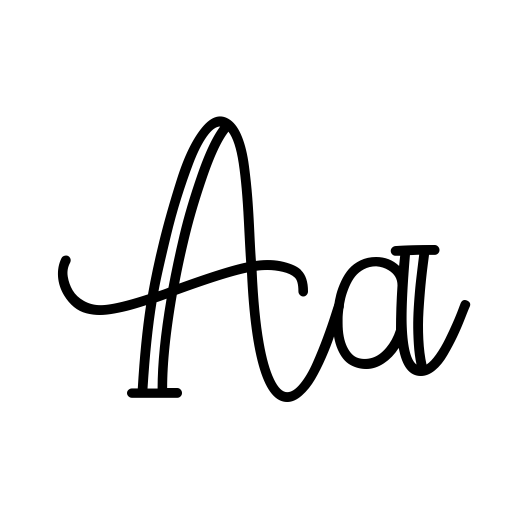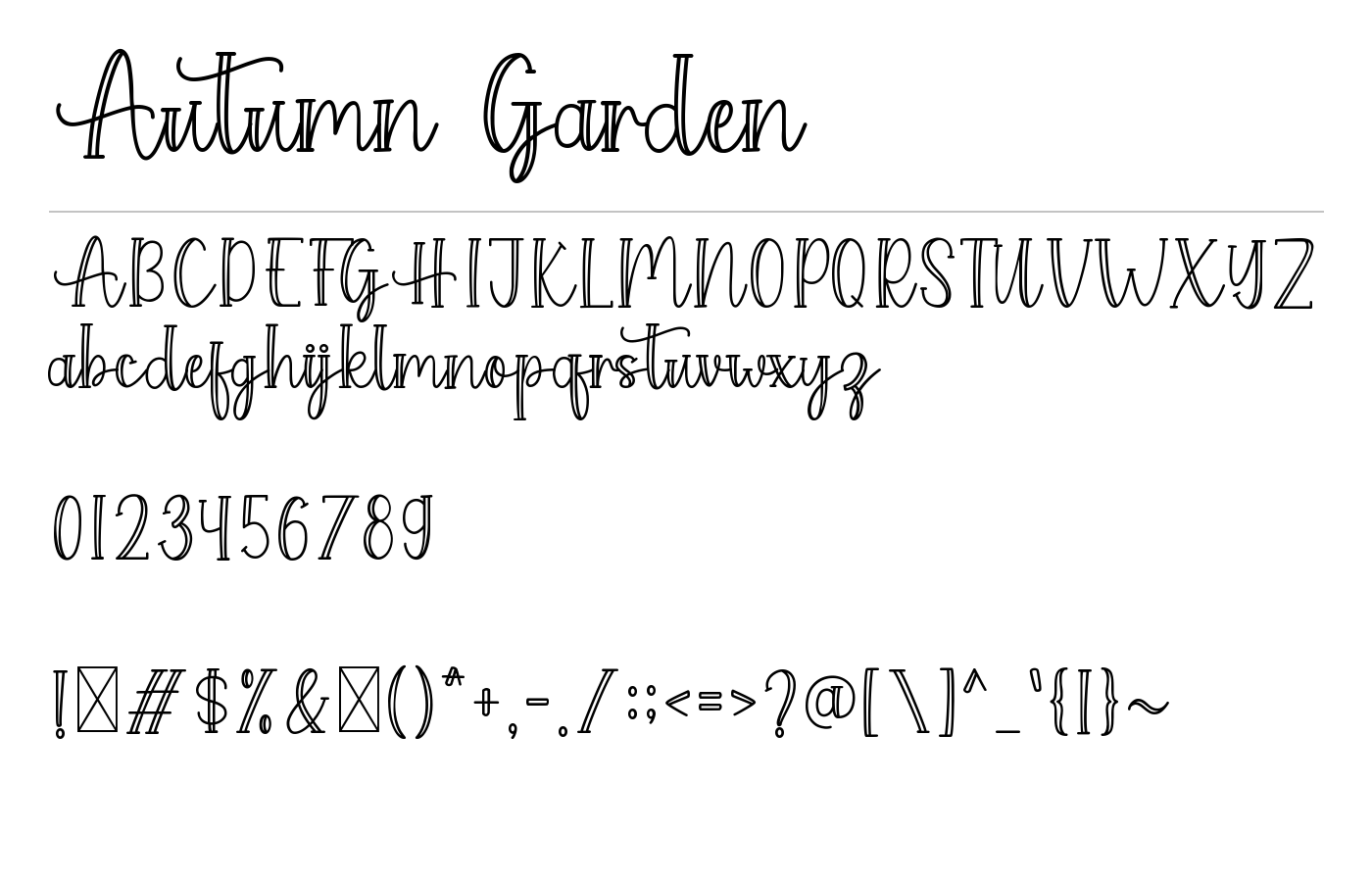
Autumn Garden is a whimsical, thin script font with a playful yet elegant charm, characterized by its tall, narrow letterforms and lively loops. Its delicate strokes and hand-drawn feel make it ideal for creative projects like invitations, branding, and decorative headlines where a friendly, artistic touch is desired. This font works best in uses that require personality and subtle sophistication, adding a light and airy mood to fashion, craft, and lifestyle designs.
Autumn Garden Font
About Autumn Garden Font